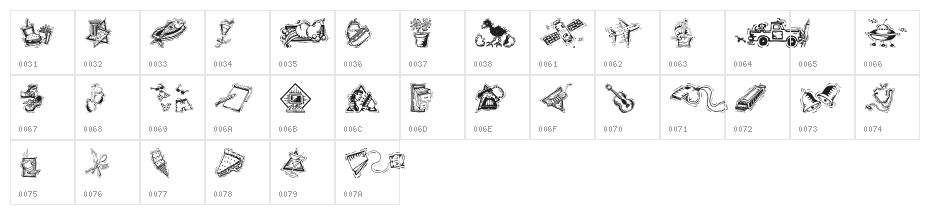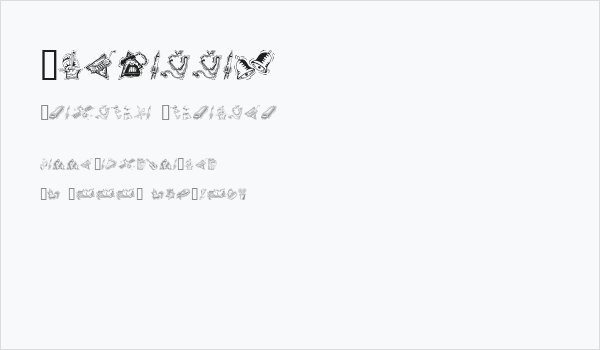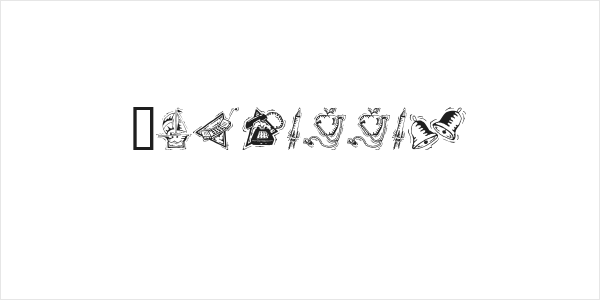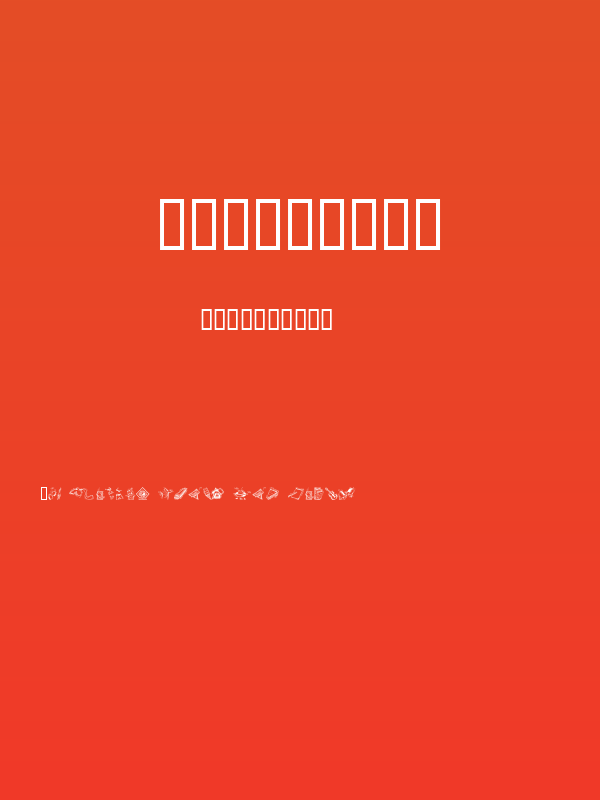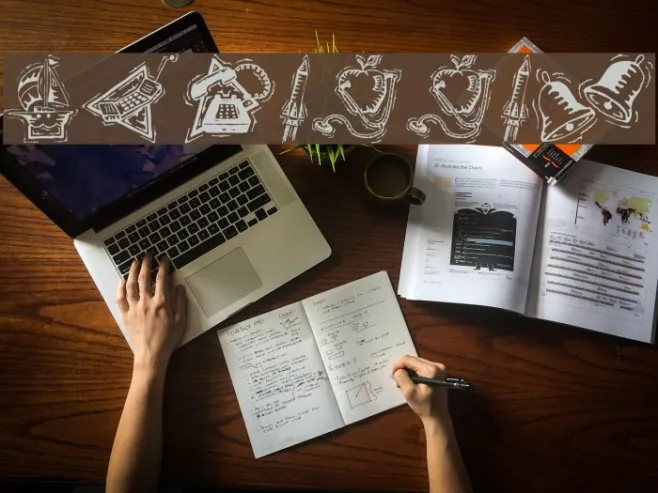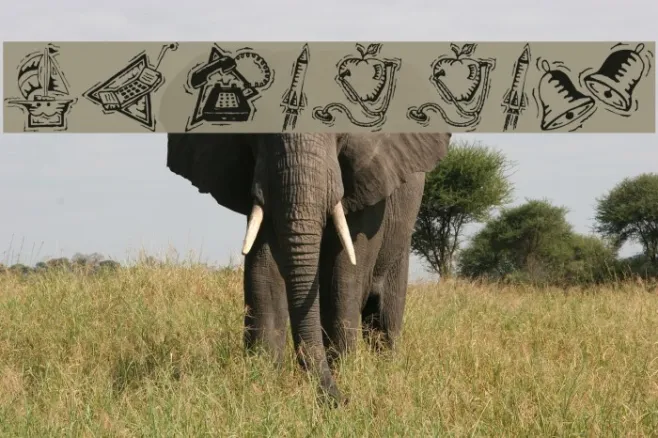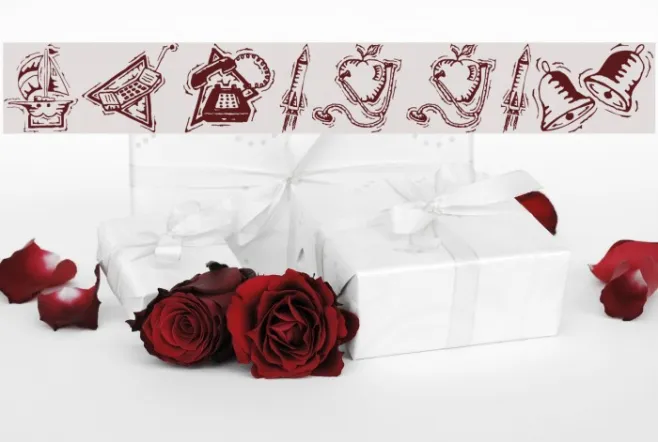
Iconettes Font
Iconettes Description
A decorative dingbat font featuring hand-drawn, whimsical icons representing various objects such as food, musical instruments, vehicles, and household items. Each character is replaced by a unique, sketch-style illustration with playful and detailed linework.
| Overall Style | Whimsical, Playful, Decorative |
| Use Case | Icons, Decorative accents, Themed graphics |
| Proposed Projects | Children’s books, educational materials, playful branding, party invitations, scrapbooking, themed posters. |